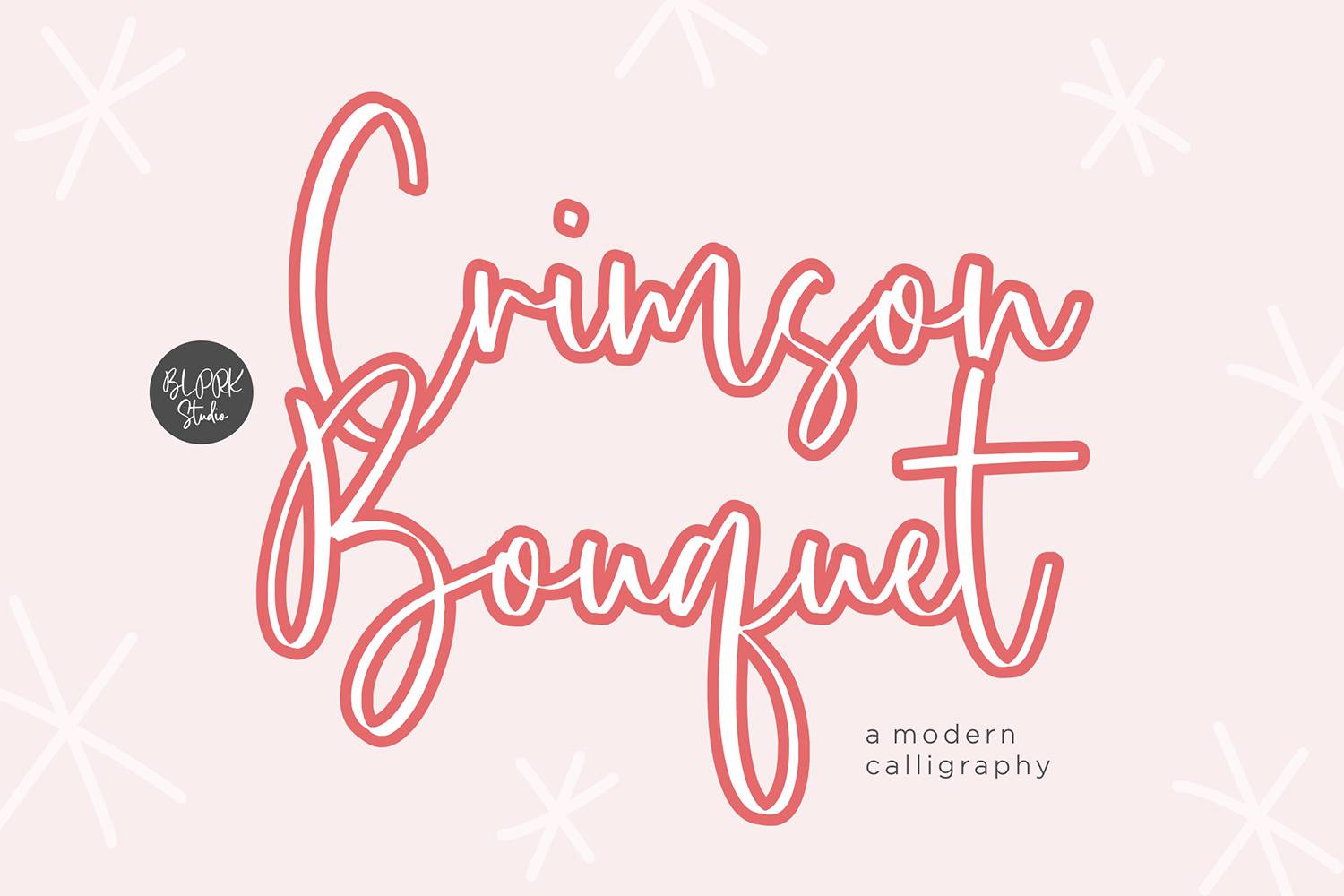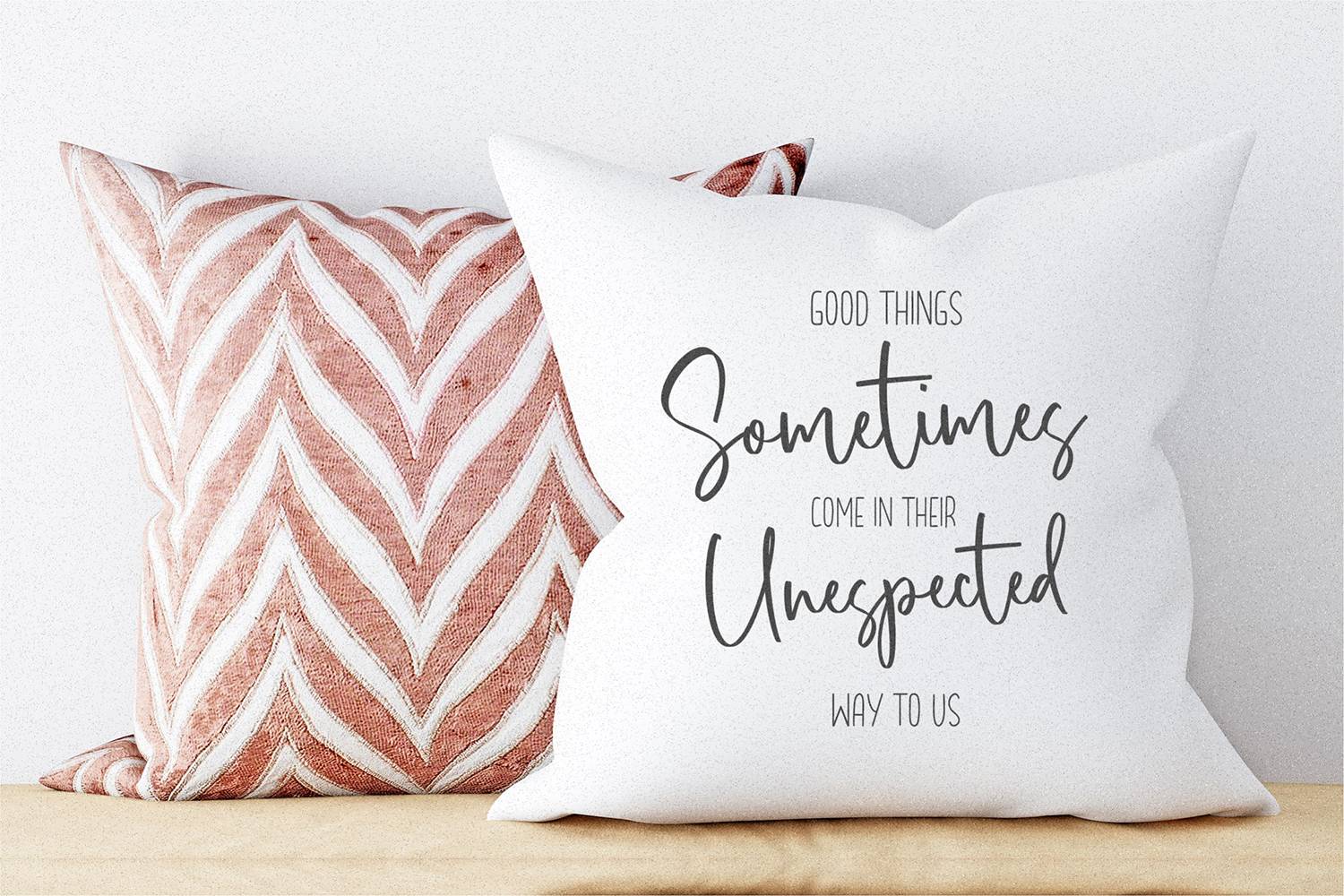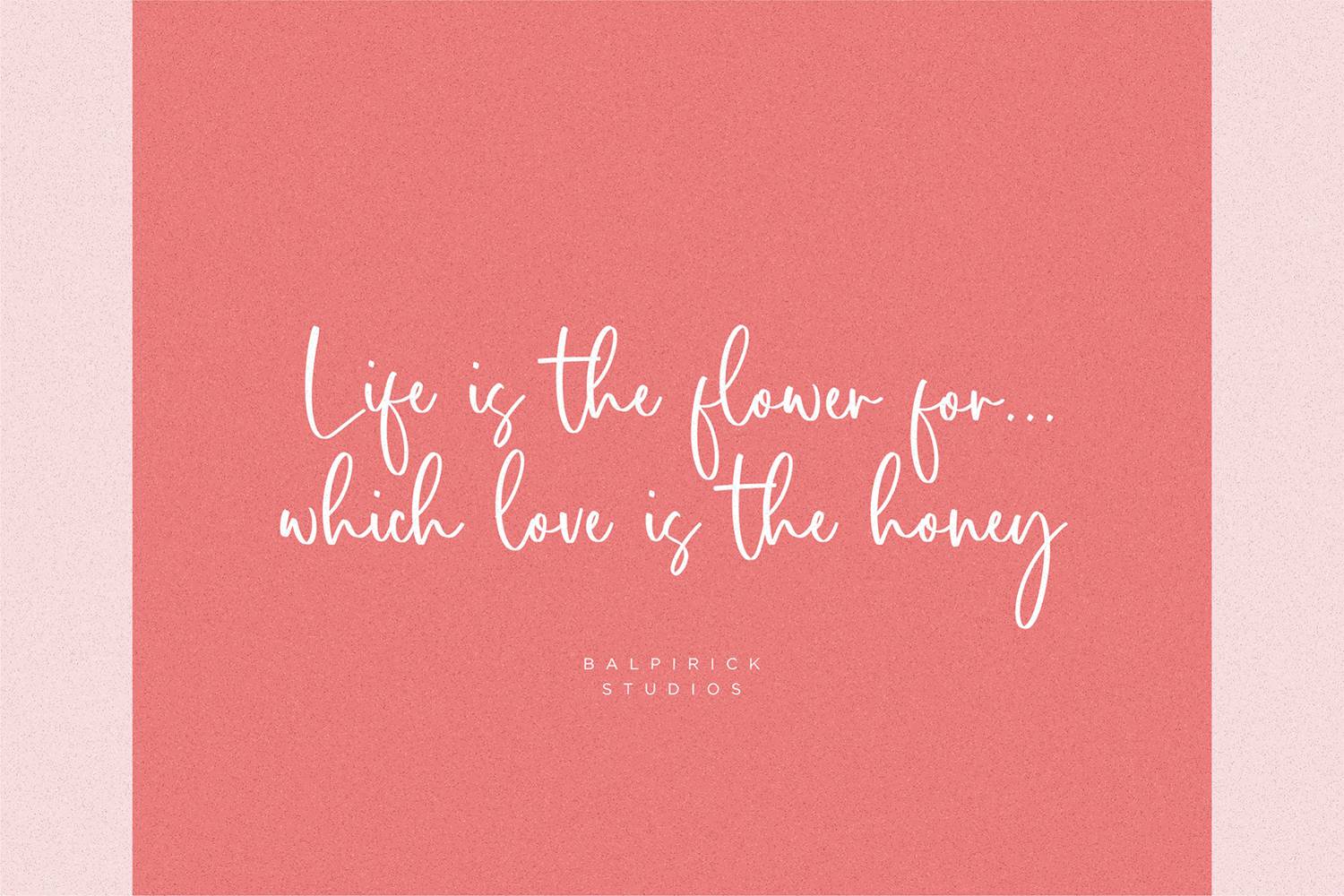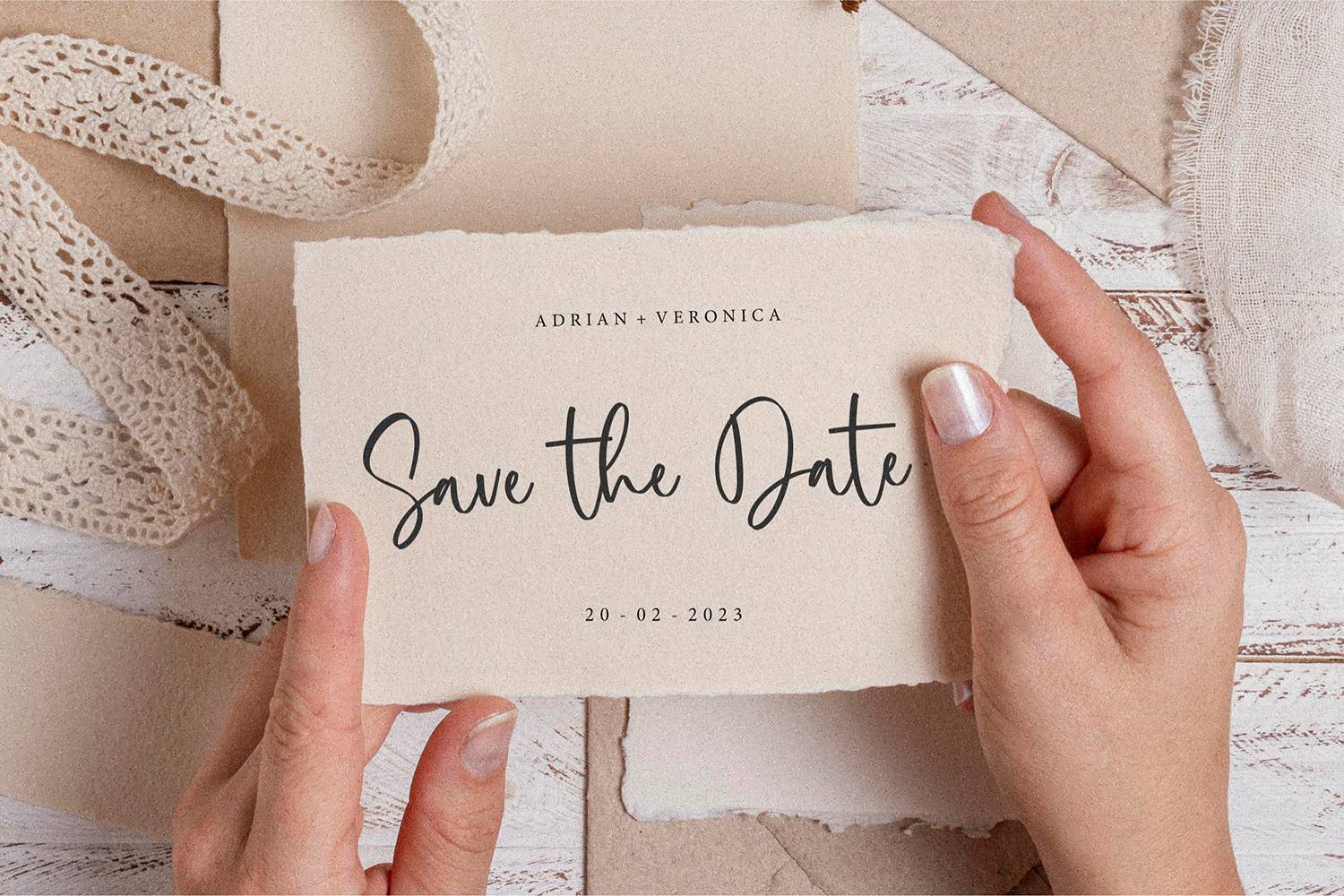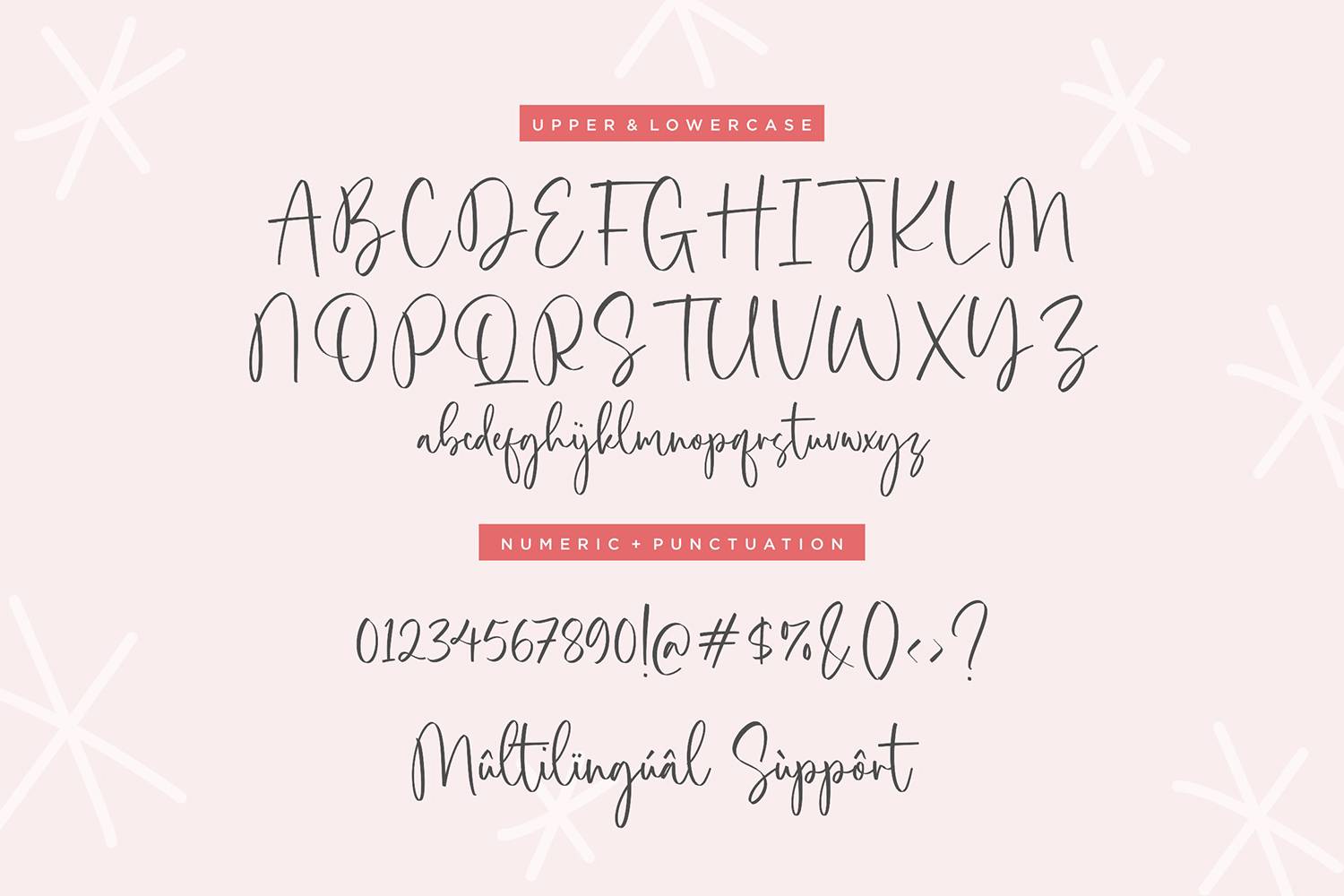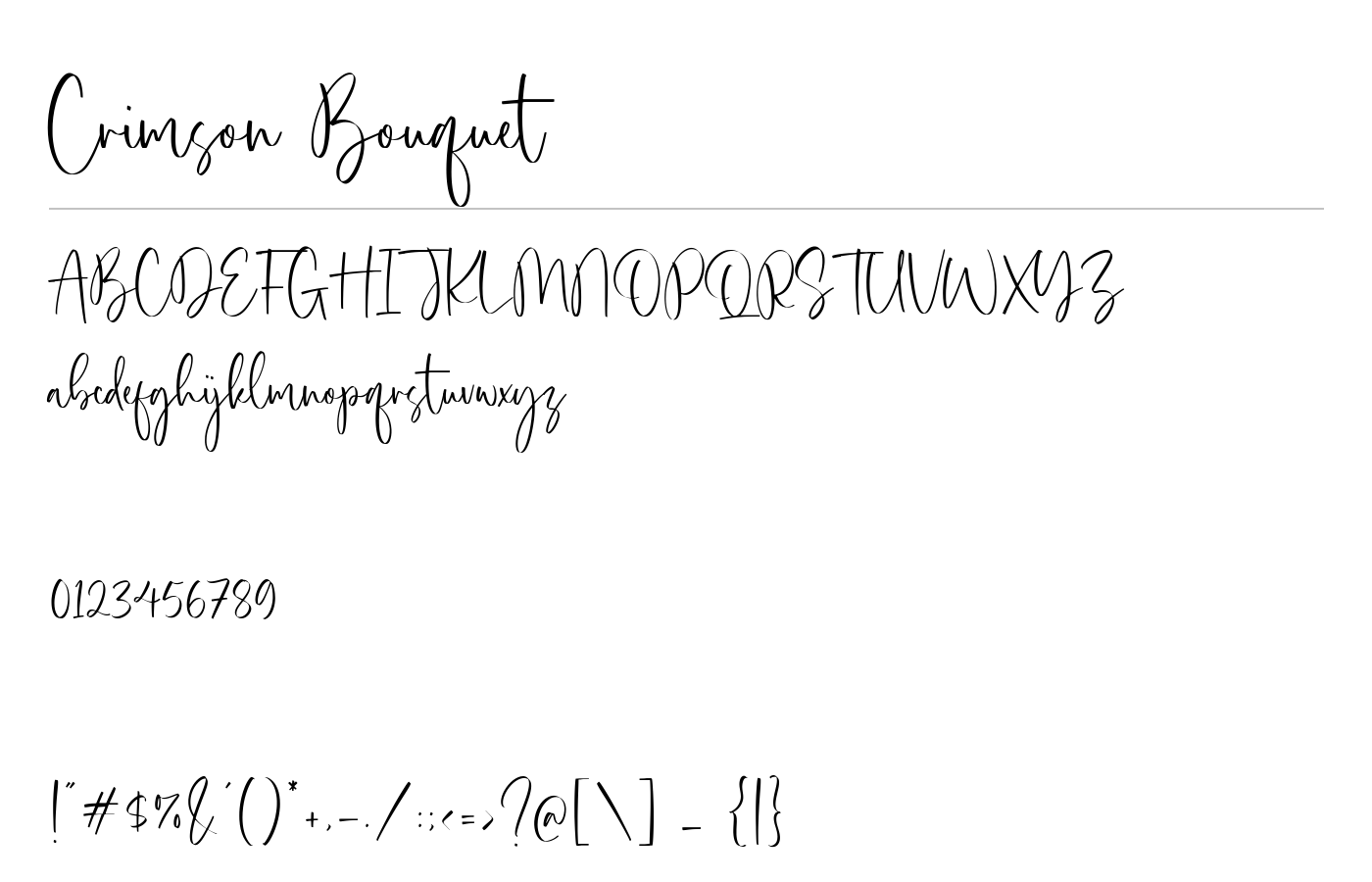
Crimson Bouquet is a delicate, handwritten script font characterized by its slender, tall letterforms and graceful, flowing strokes. It exudes an elegant and personal feel, making it perfect for romantic projects, invitations, or branding that seeks a warm, artistic touch. Its light weight and airy spacing enhance readability while maintaining a stylish and approachable charm.
Crimson Bouquet Font
About Crimson Bouquet Font